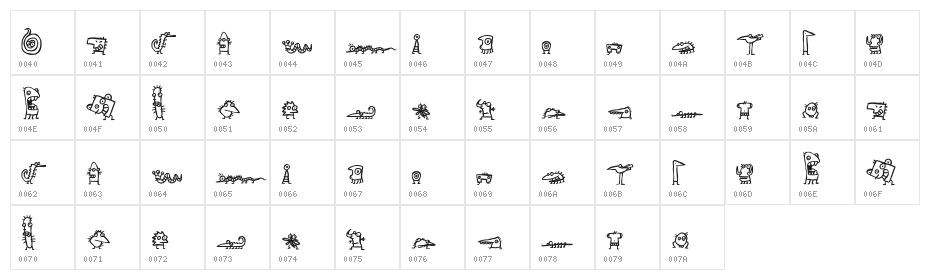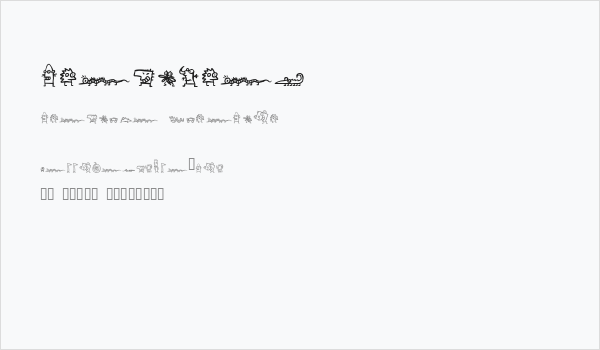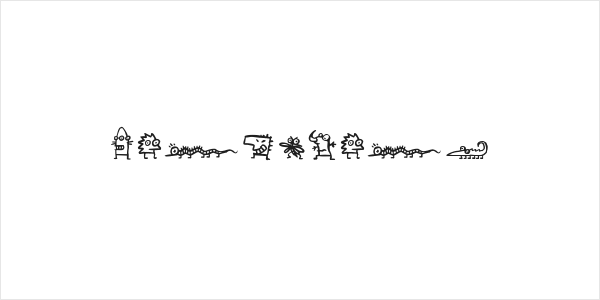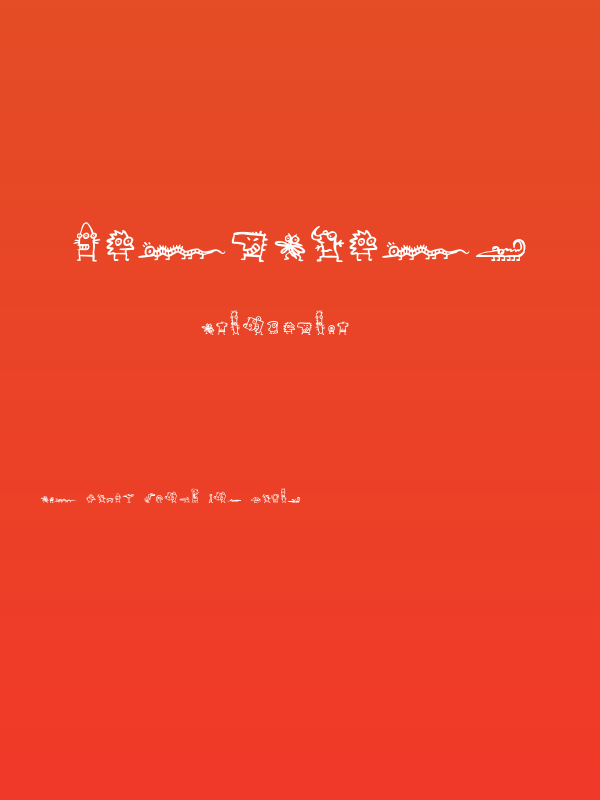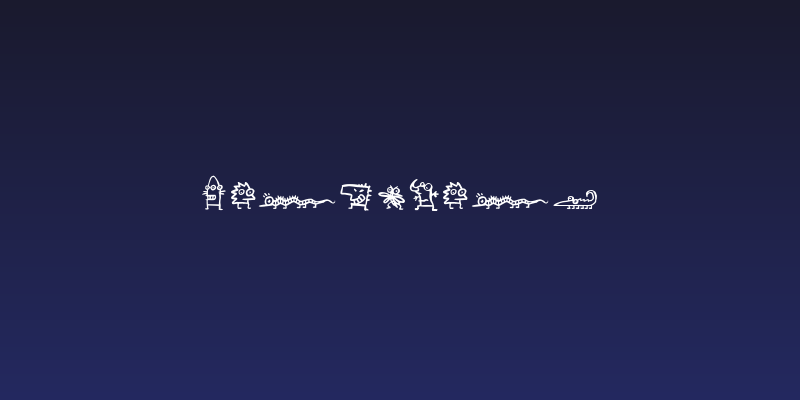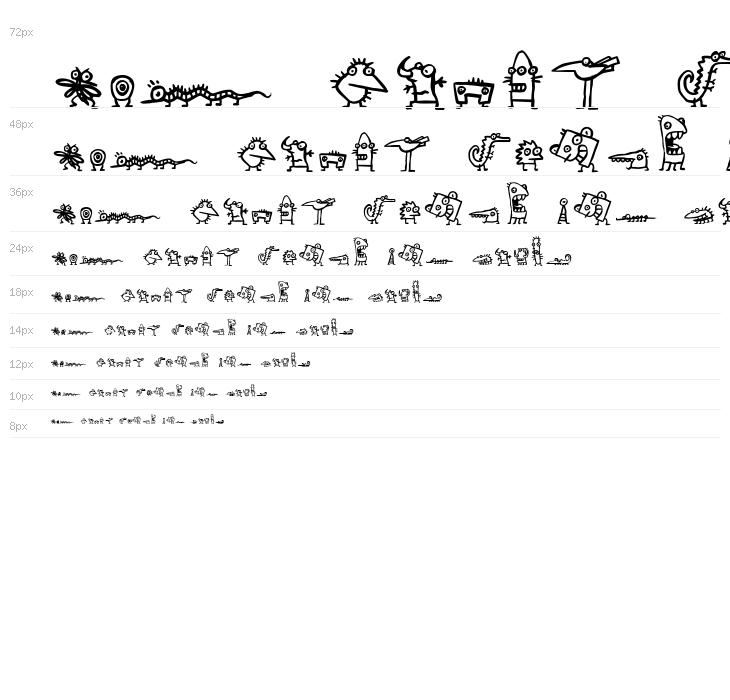
creatures Font
creatures Description
This font features a whimsical and playful collection of creature-like characters. Each character is uniquely designed with quirky and imaginative details, resembling doodles or sketches of fantastical creatures. The style is highly decorative, with each letter taking on a distinct personality, making it ideal for creative and artistic projects. The characters are bold and expressive, with varying line thicknesses that add to their dynamic appearance. This font is perfect for projects that require a fun and unconventional touch, such as children's books, comic strips, or playful branding.
| Proposed Projects | Children's books, comic strips, playful branding, creative posters, and artistic projects. |